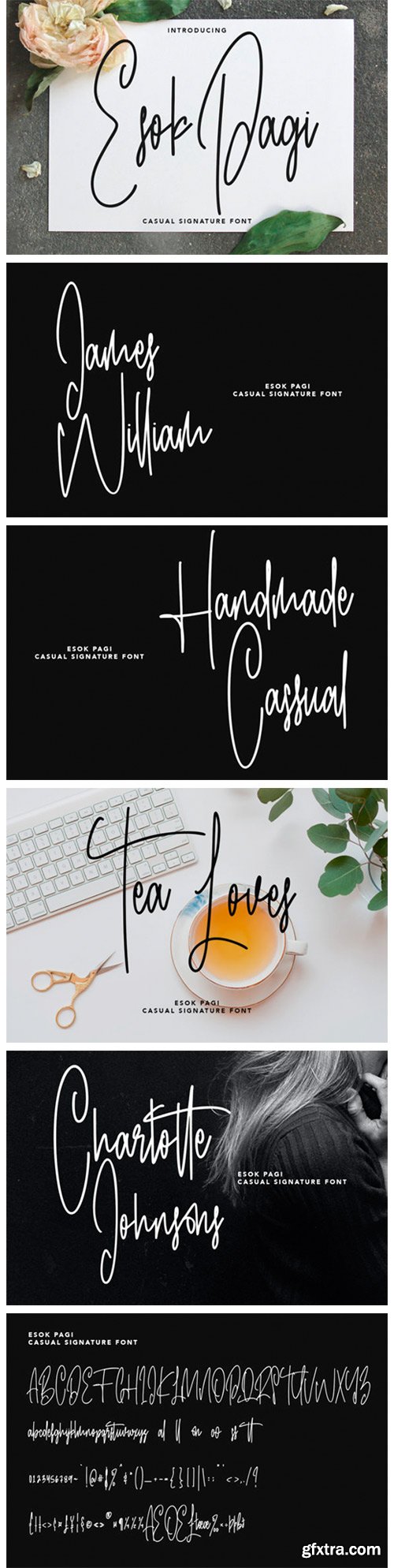
Esok Pagi Font
Esok Pagi is a lovely and timeless handwritten font. It is the best choice for creating eye catching logos, branding and quotes. Every letter has a unique and beautiful touch, which will make your design come alive!